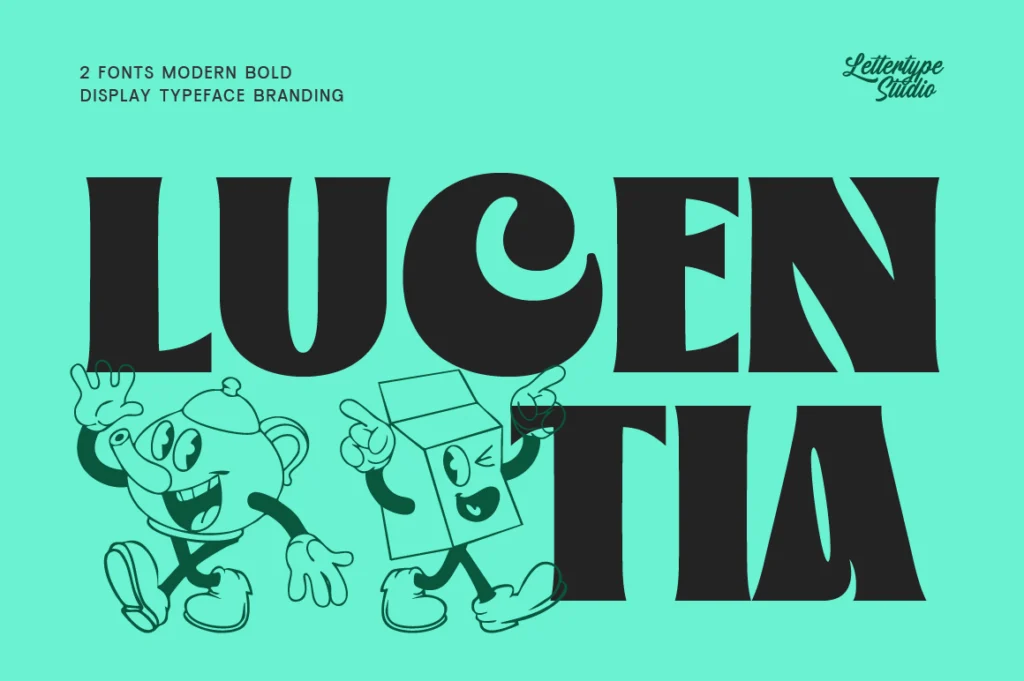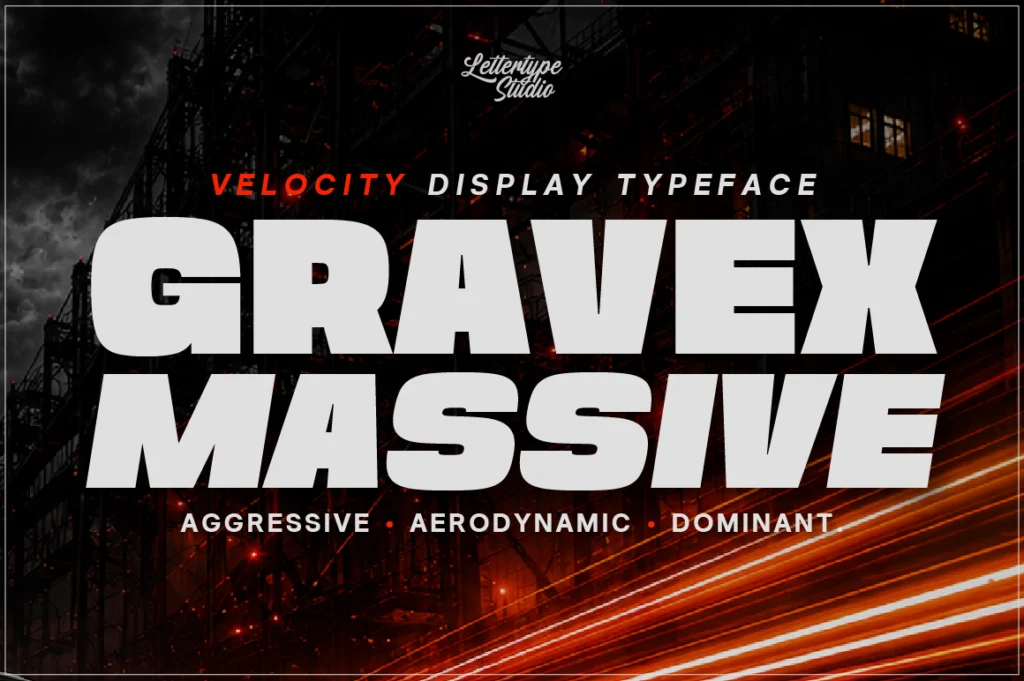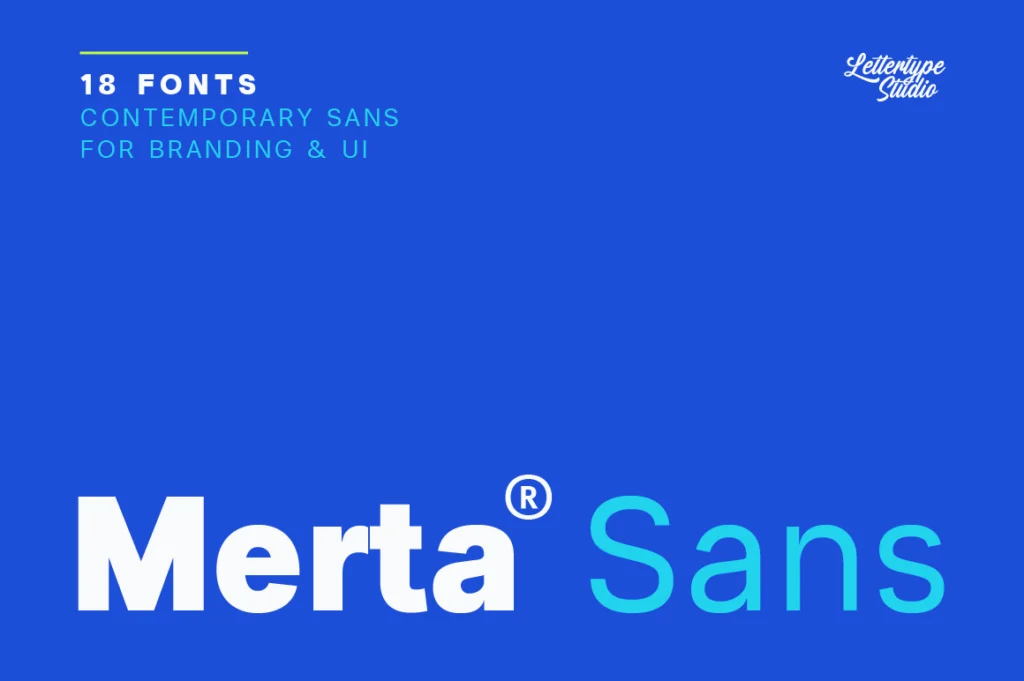
Best Fonts for Restaurant Branding
Restaurant Branding Fonts - Typography That Makes Every Meal Memorable
A great restaurant is remembered for more than its food. Customers notice the atmosphere, interior design, menu, packaging, uniforms, and even the typography before they take their first bite. Every visual detail contributes to the dining experience, making branding an essential part of building a successful restaurant.
Typography is one of the strongest visual assets in restaurant branding. The right font immediately communicates whether a restaurant is luxurious, casual, family-friendly, modern, or traditional. Customers subconsciously develop expectations based on the typography they see long before tasting the food.
Successful restaurant brands maintain consistency throughout every customer touchpoint. From storefront signage and menus to takeaway packaging, social media, and websites, typography creates a recognizable identity that customers remember.
Different restaurant concepts require different typographic personalities. A fine dining restaurant needs typography that communicates sophistication and elegance, while a burger restaurant may benefit from bold, energetic letterforms. Understanding the audience and dining experience helps determine the right typeface.
For fine dining establishments, Lucentia offers timeless elegance inspired by editorial typography. Its refined serif structure creates an atmosphere of exclusivity, making it ideal for upscale restaurants, wine bars, luxury hotels, and chef-driven dining experiences.
Lucentia is recommended for:
• Fine dining restaurants
• Wine bars
• Luxury hotel restaurants
• Premium menus
• Reservation websites
Restaurants with a modern and creative atmosphere often benefit from typography that balances elegance and personality. Montegar provides exactly that balance. Its fashionable serif design feels premium while remaining approachable, making it perfect for contemporary restaurants and boutique dining concepts.
Montegar works beautifully for:
• Modern restaurants
• Artisan dining
• Chef’s table concepts
• Cocktail bars
• Premium food branding
Menus deserve special attention because they influence purchasing decisions. Typography should help customers navigate dishes easily while highlighting signature meals and premium offerings. Clear hierarchy encourages readability and improves the overall dining experience.
For menus, ordering systems, and restaurant websites, Merta Sans delivers excellent clarity. Its modern appearance keeps information organized without distracting from the restaurant’s visual identity.
Merta Sans performs especially well for:
• Restaurant menus
• QR code menus
• Digital ordering systems
• Restaurant websites
• Food delivery apps
Packaging has become increasingly important as takeaway and delivery services continue to grow. Food boxes, paper bags, coffee cups, stickers, and labels should all reflect the same brand identity customers experience inside the restaurant.
Becaure offers elegant proportions and excellent readability, making it ideal for premium takeaway packaging and branded food products.
Becaure is suitable for:
• Takeaway packaging
• Food labels
• Gift vouchers
• Product packaging
• Premium merchandise
Some restaurant concepts require stronger visual impact. Steakhouses, barbecue restaurants, sports bars, and street food brands often benefit from bold typography that communicates confidence and energy.
For these concepts, Gravex Massive creates memorable branding with its powerful letterforms. It performs exceptionally well for bold logos, promotional campaigns, outdoor signage, and seasonal events.
Gravex Massive is recommended for:
• Burger restaurants
• BBQ brands
• Sports bars
• Street food festivals
• Restaurant promotions
Restaurant branding extends far beyond the logo. Customers interact with typography through reservation confirmations, loyalty cards, social media posts, uniforms, advertisements, and even table numbers. Maintaining consistent typography across these elements strengthens recognition and reinforces professionalism.
Another important consideration is readability. Decorative fonts may appear attractive, but menus must remain easy to read in various lighting conditions. Customers should spend time enjoying their meals—not struggling to understand the menu.
Conclusion
Typography is one of the most valuable investments a restaurant can make. The right fonts strengthen brand identity, improve menu readability, enhance packaging, and create memorable customer experiences. Whether you’re opening a luxury restaurant, a neighborhood café, or a modern bistro, fonts like Lucentia, Montegar, Merta Sans, Becaure, and Gravex Massive provide versatile solutions that elevate restaurant branding from ordinary to unforgettable.